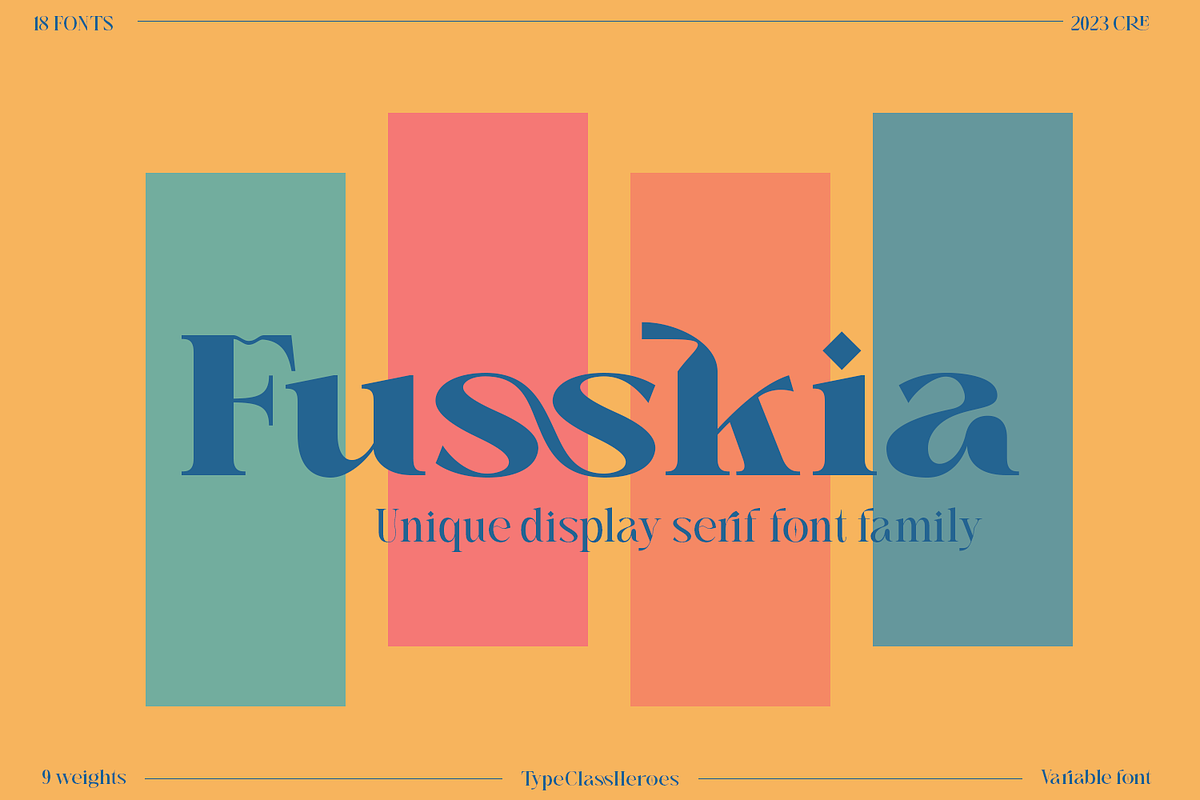
Fusskia - Display Serif Font Free Download is a bold and elegant serif typeface designed to make a statement. With its high contrast, sharp serifs, and sophisticated details, this font is perfect for headlines, logos, posters, branding, and editorial designs. Its strong, stylish presence makes it ideal for projects that need a mix of modern and classic aesthetics.
Fusskia is perfect for both vintage and contemporary designs, providing a polished look for upscale branding, fashion magazines, or creative event promotions. The high-contrast letterforms add a sense of luxury and refinement to any visual.